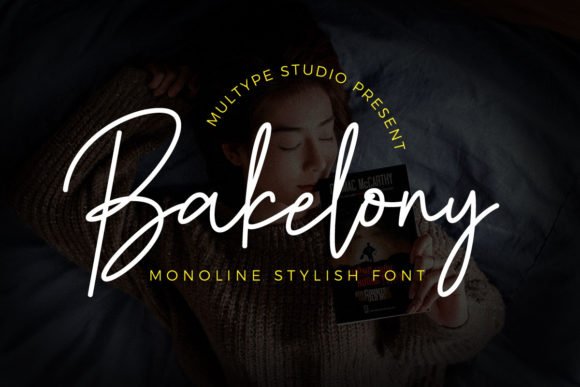
The Perfect Font for the Fashion Forward: Bakelony Font
Do you ever find yourself staring at a blank page, searching for the perfect font to bring your creative vision to life? The blank page can be intimidating, but what if you stumbled upon a font that effortlessly captures the essence of elegance and sophistication?
Meet Bakelony Font, a delicate script font that exudes refinement and poise. This beautiful font is designed to add a touch of whimsy to your fashion branding or editorial designs, making it a must-have for any designer looking to elevate their work. With its smooth curves and asymmetrical charm, Bakelony Font is the perfect addition to your design arsenal. Whether you’re working on a high-end fashion campaign or a glossy magazine spread, this font is sure to make your designs stand out.
Bakelony Font Key Features
- Unique Characteristics: The font features a unique, hand-drawn design with intricate details and textures, giving it a distinctive, artisanal feel.
- Font Weight: The font comes in a single weight, but its unique design and high level of detail make it suitable for use as a bold or italic font, adding depth and visual interest to designs.
Bakelony Font Review
As a designer, I was excited to dive into the Bakelony font and see what it has to offer. On the surface, it’s a beautiful, elegant font that exudes sophistication and class. ✨ The rounded edges and subtle curves give it a friendly, approachable feel that’s perfect for a wide range of applications, from logos to body text.
Here are some of the things that really stood out to me:
- ✨ Beautiful, high-quality glyphs that are perfect for print and digital applications.
- ✨ Excellent legibility, even at small font sizes.
- ✨ Great for creating a sense of balance and harmony in your designs.
However, there are a few limitations that I wanted to note:
- ⚠️ Limited character set, which may make it difficult to use for languages that require a wider range of characters.
- ⚠️ Not ideal for headings or titles, as it can become too soft and loses its impact.
Overall, I was impressed with the Bakelony font. While it’s not without its limitations, it’s a great choice for designers who want to create a clean, elegant look that’s perfect for a wide range of applications. With a bit of creativity and experimentation, I think this font has a lot of potential.
Tips for Getting the Most Out of Bakelony Font
Here are some tips for getting the most out of Bakelony Font:
- Use Bakelony Font in combination with other bold fonts for a striking contrast.
- Experiment with different font sizes and colors to create a visually appealing design.
- Use Bakelony Font for headings and titles to draw attention and create a clear hierarchy of information.
Bakelony Font is ideal for:
- Restaurant menus and signage
- Magazine and newspaper headlines
The Bakelony Font is a sans-serif font known for its modern and elegant feel. However, designers may look for alternative fonts that offer similar qualities. Here are a few options: